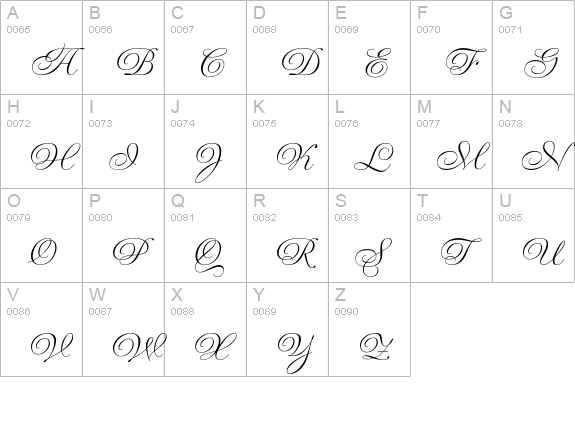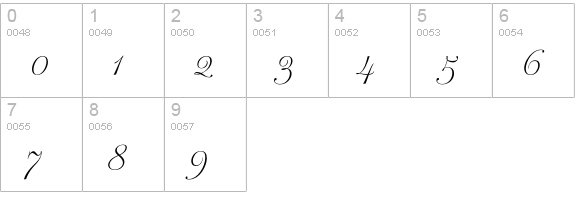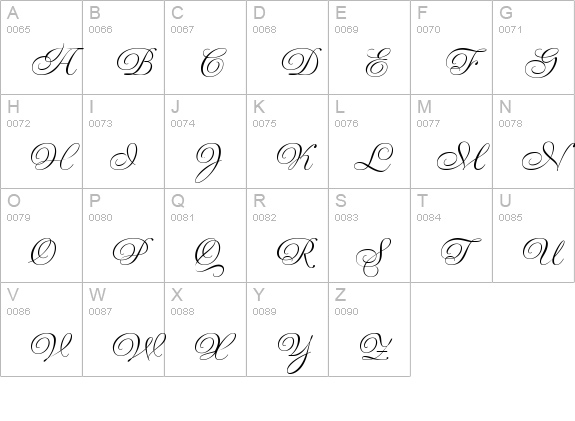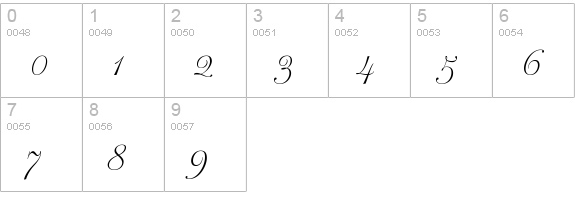
Gravura Std Font Details
Gravura Std is a stunning and elegant font that exudes a sense of sophistication and style. With its intricate details and classic design, Gravura Std is perfect for adding a touch of refinement to any project. The graceful curves and clean lines of this font make it a versatile choice for a wide range of applications, from invitations to branding materials. What's even better is that Gravura Std is available for free download at FontsMarket.com. That's right, you can add this beautiful font to your collection without spending a single penny. So why wait? Elevate your designs with the timeless beauty of Gravura Std today!